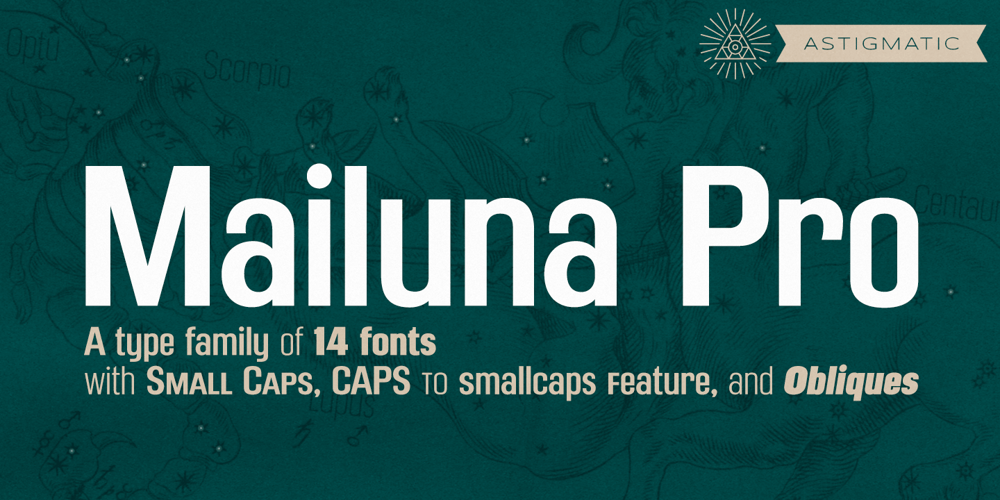
Mailuna Pro AOE Font Family was designed by Brian J. Bonislawsky and published by Astigmatic. Mailuna Pro AOE contains 14 styles and family package options. Mailuna Pro is a family of gothic typefaces of weight and oblique stature, finding themselves on a line between modern and historical gothic styles. Originating as a revival and elaboration of a limited lettering specimen from a series of old loose spanish specimen book pages, it finds itself in the visual company of vintage transportation roll signs, wood type gig posters, financial publications, etc. What began as just Capitals, Lowercase and Numerals was expanded to a rich pro glyphset including small caps, unlimited fractionals, superiors & inferiors, ordinals, tabular & proportional figures, a Caps to small caps feature and an expanded language glyph set. From modern letterpress back to historical adverts, book covers, headlines, or anything else you want to give a dash of vintage authenticity to, the Mailuna Pro Family is here to fill your needs. Be sure to download and take Mailuna Pro AOE – Book weight for a spin for free.